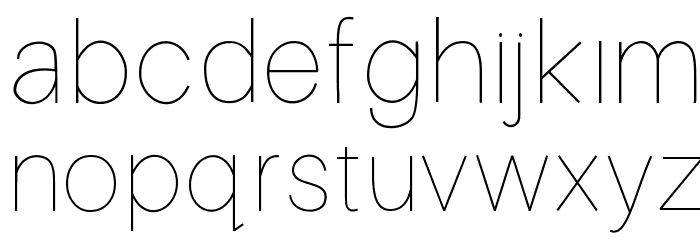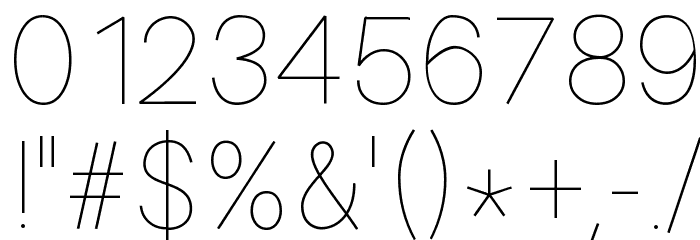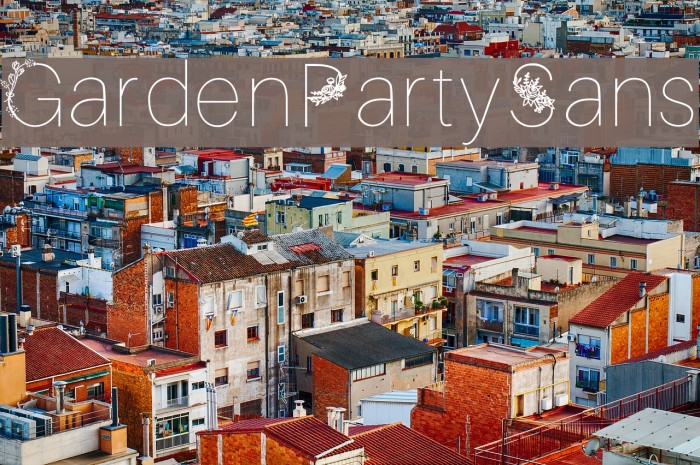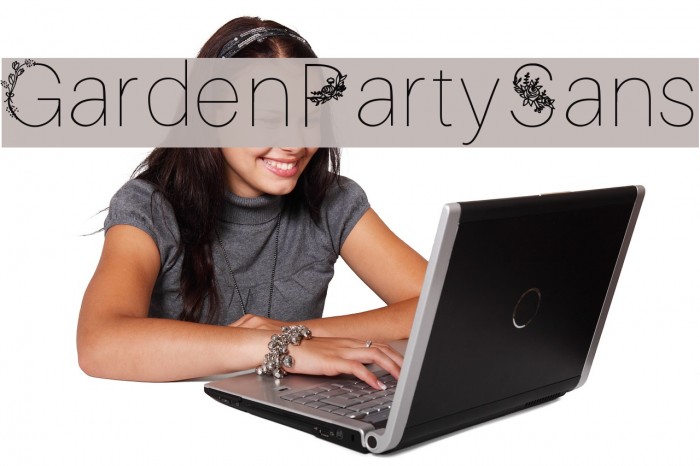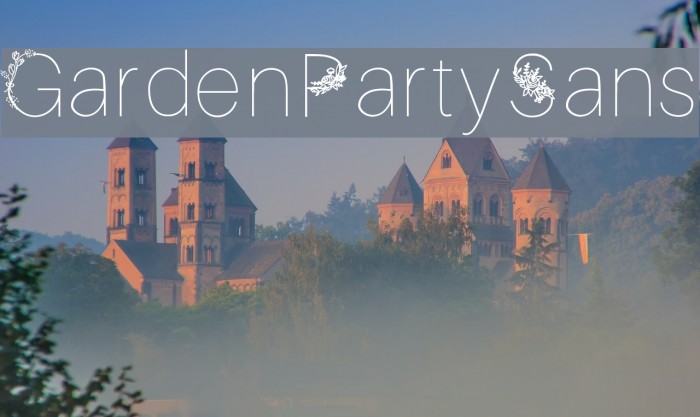
GardenPartySans Font
This font presents a unique blend of elegance and creativity, featuring uppercase letters adorned with intricate floral designs that evoke a sense of nature and whimsy. The lowercase letters are clean and minimalist, offering a stark contrast to the decorative uppercase. The numerals and special characters maintain a simple, modern aesthetic, ensuring readability and versatility. This combination of decorative and simple elements makes it suitable for a variety of design projects, where a touch of elegance and creativity is desired.
A decorative font with floral uppercase and minimalist lowercase letters.
- Weight: Medium
- Proposed Projects: Ideal for wedding invitations, greeting cards, branding projects, and any design requiring a touch of elegance and nature-inspired creativity.
- Use Case: Headlines, Logos, Invitations